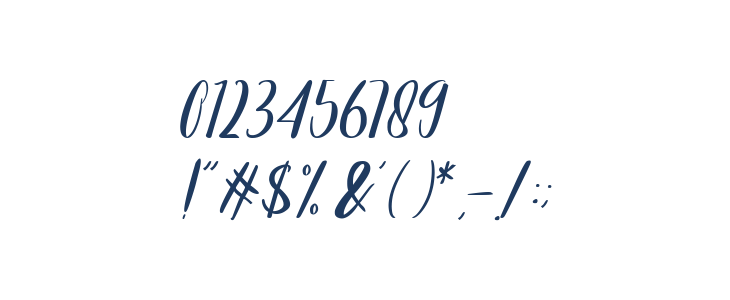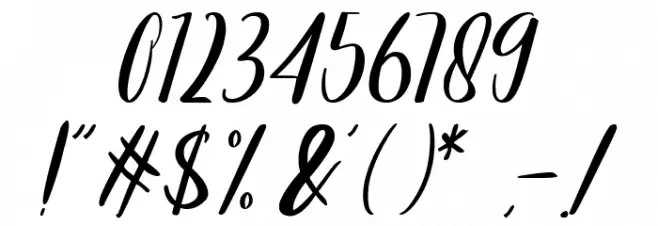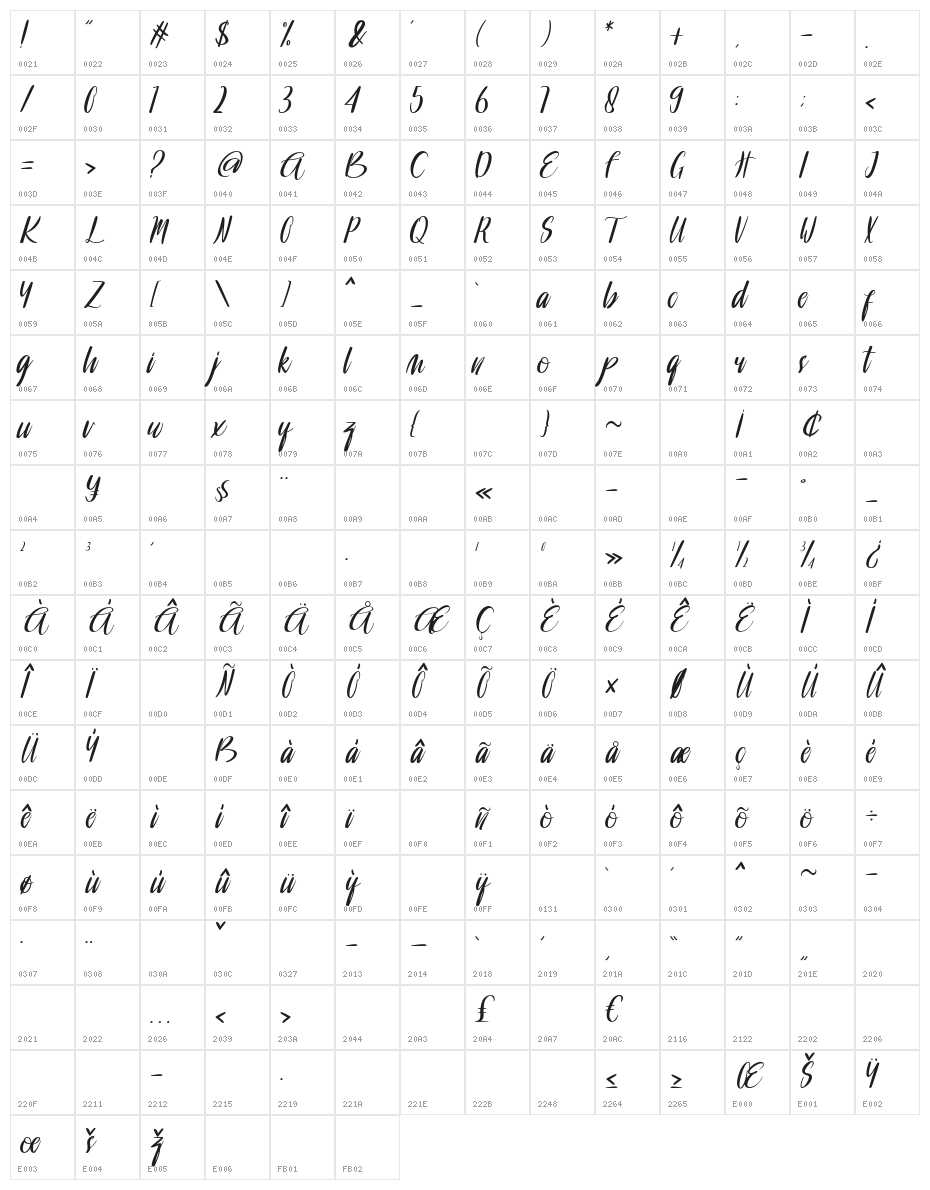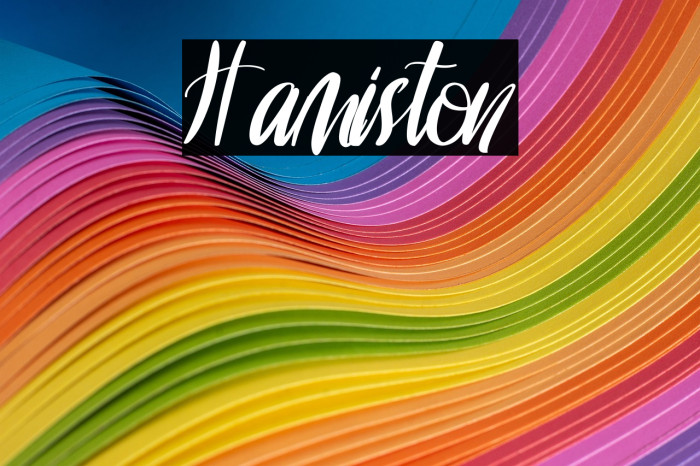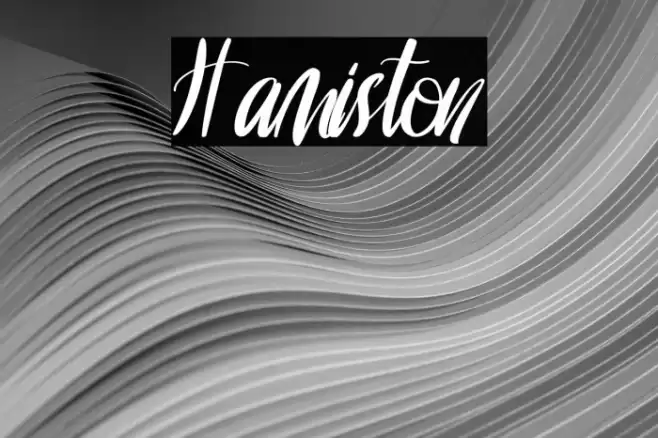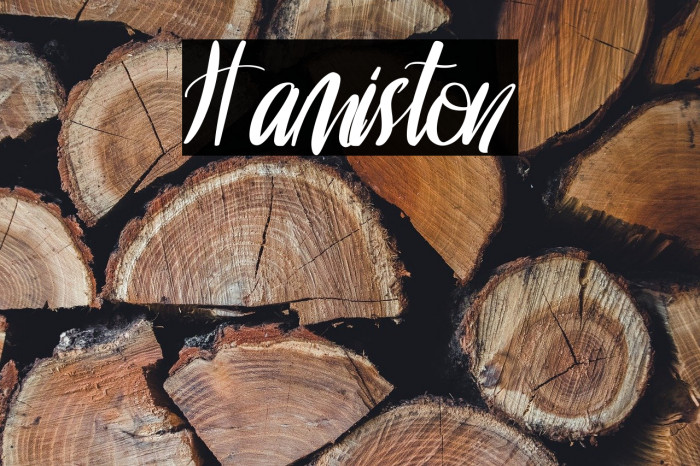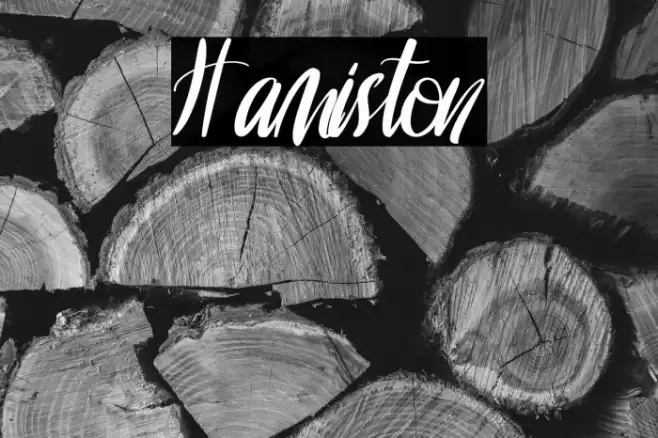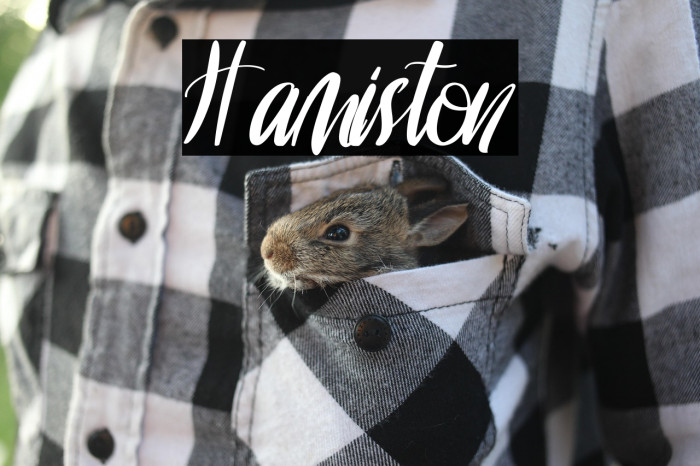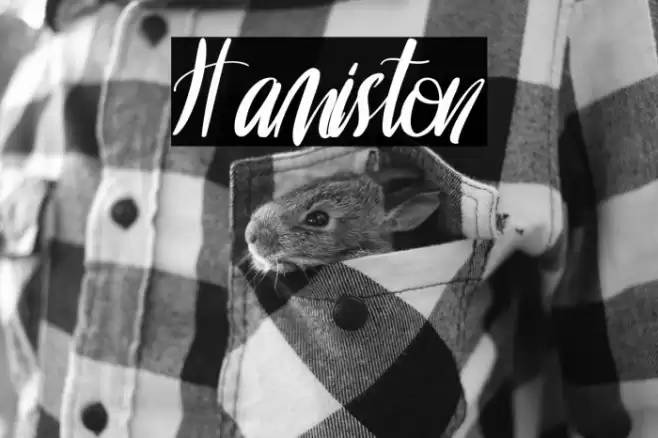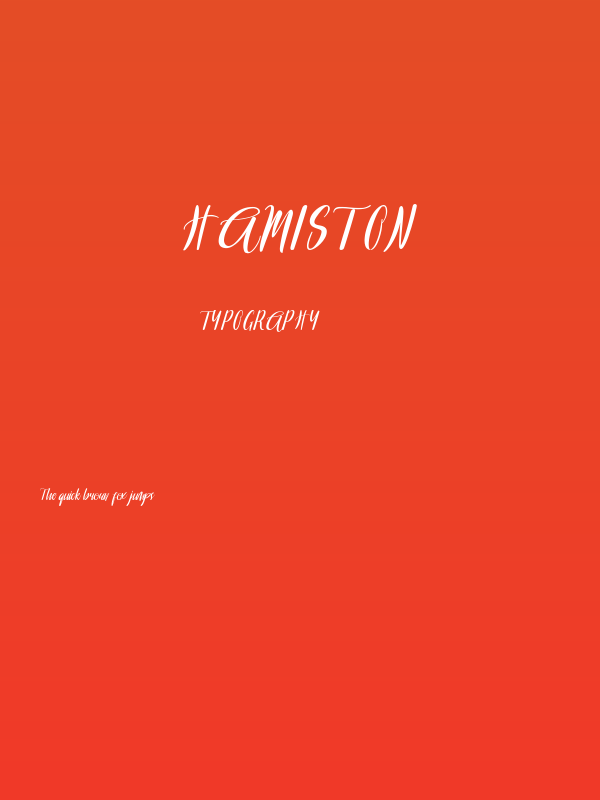
Hamiston Font
Hamiston Description
This font features a dynamic and fluid script style, characterized by its elegant and flowing letterforms. The uppercase letters are bold and slightly slanted, giving a sense of movement and grace. The lowercase letters maintain a consistent style with smooth curves and a handwritten feel, enhancing its personal and artistic touch. The numerals are clear and legible, matching the overall aesthetic of the font. Special characters are creatively designed, adding to the font's versatility. This font is perfect for projects that require a touch of elegance and sophistication.
| Overall Style | Elegant, Artistic |
| Proposed Projects | Ideal for wedding invitations, branding, greeting cards, and elegant packaging designs. |